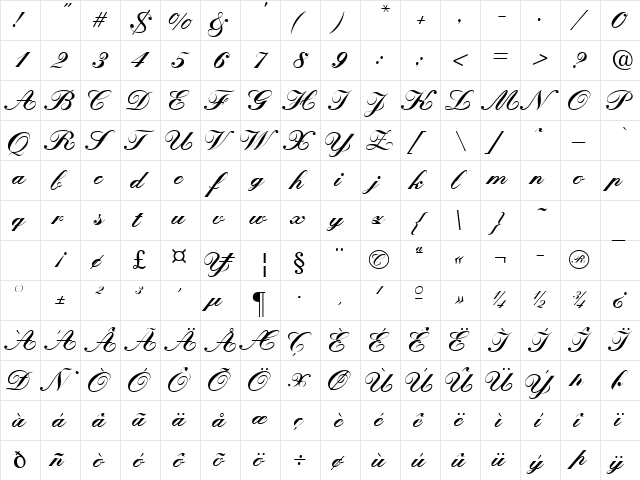
MgRoyalScript UC Pol Normal
Design Context for MgRoyalScript UC Pol Typeface
MgRoyalScript UC Pol flows with the natural rhythm of handwritten lettering, making it ideal for designs that call for warmth and personal expression.
Font Pairing: Combine MgRoyalScript UC Pol with a simple geometric sans for maximum contrast — the tension between flowing curves and clean structure is a classic typographic pairing.
Pro Tip: Pair MgRoyalScript UC Pol with a clean sans-serif for supporting text. The contrast between fluid script and geometric structure creates an elegant typographic hierarchy.